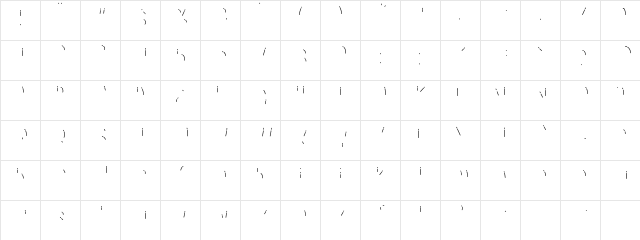
Baby Balloon Inner Regular Free Font
Baby Balloon Inner Regular
Complete Baby Balloon Inner Regular glyph index. Displaying only characters natively supported by Baby Balloon Inner Regular font.
Design Context for Baby Balloon Inner
Baby Balloon Inner is a composed and adaptable typeface that performs quietly and consistently across a wide range of design contexts.